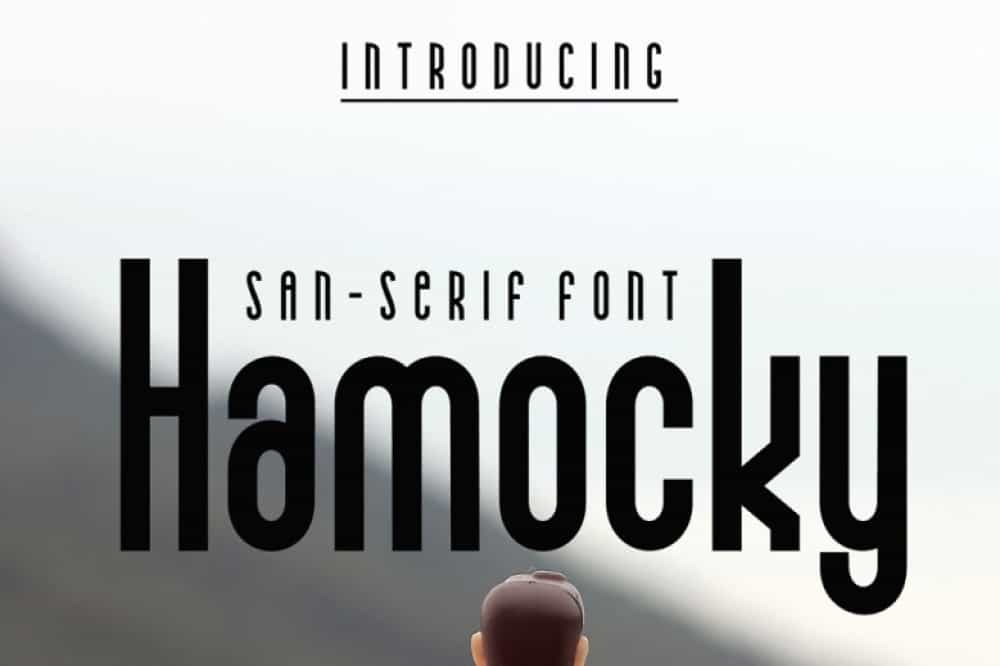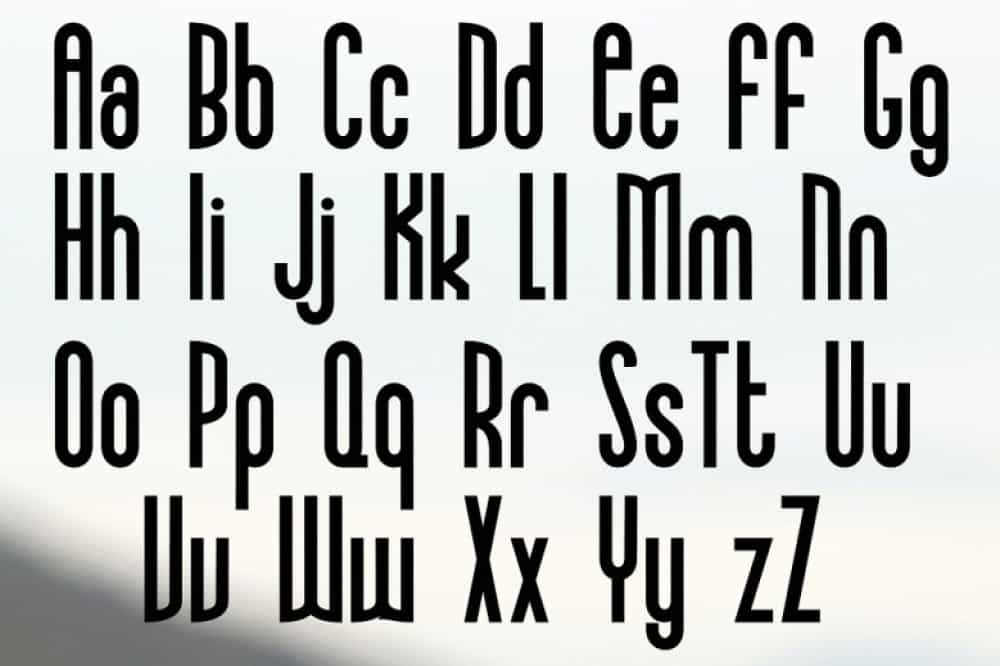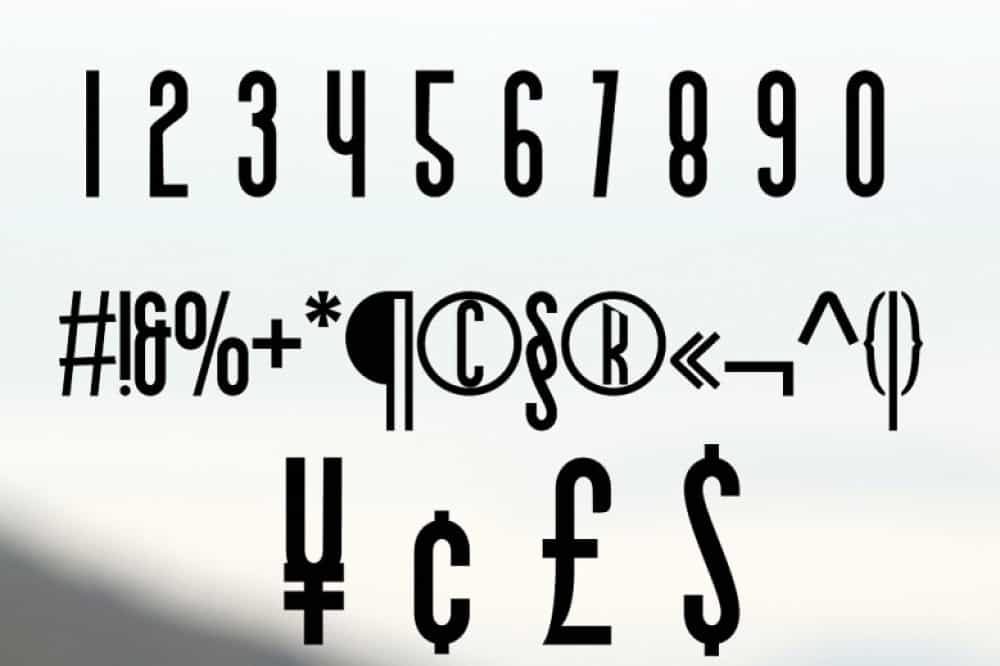
Hamocky is a beautiful vintage sans serif font with a simple yet strong look which will beautifully convey the idea of summer vacation. Although it is a simple font, it still give a cool and stylish aesthetic to anything that is written with it.